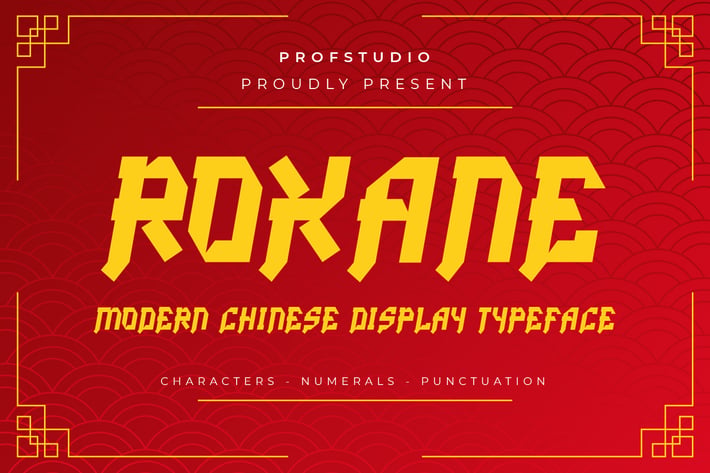
Roxane - Modern Bold Chinese Display Typeface
Hi Ladies and Gentleman ! Proudly present best Chinese Display Typeface “Roxane” for you business.
Roxane - Chinese Display Typeface which can be interpreted professional. we keep this font looks playful, modern, stylish, readable, stylish, catchy and easy to use.
Roxane - is the great choice for Chinese Event, Lunar New Year Event, branding, logo design magazine and many other design project. Roxane here to make your work to high level!!!